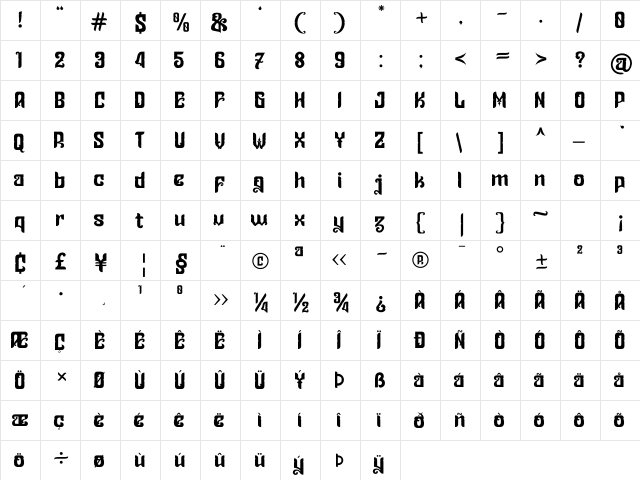
Ceriburn Regular
| Foundry | SKETS Lettering |
| Designer | Sahrul Hidayat |
Design Context for Ceriburn Typeface
Ceriburn is a composed and adaptable typeface that performs quietly and consistently across a wide range of design contexts.